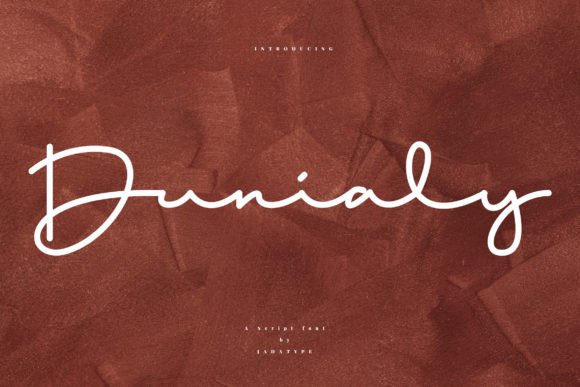
How Dunialy Helped My Bakery Look More Professional
I run a small bakery called “Sweet Haven,” and for years, I’ve been struggling with how to make my packaging stand out. Every time I printed new labels or updated my menu, it felt like I was just guessing what would work best. I wanted something that looked polished, consistent, and professional—something that would make customers remember my brand.
That’s when I discovered Dunialy. It’s a script font with monoline lines, and honestly, it changed everything. The first time I saw it, I knew it had the potential to elevate my brand visuals. It has this elegant, handwritten feel that feels personal and authentic, but still maintains a clean and modern look. It’s not too fancy, and it doesn’t overpower the design—it complements it.
The Right Font for a Signature Feel
Dunialy is perfect for creating a signature look. I used it on my bakery box labels and it immediately gave them a more refined appearance. It’s especially great for wordmarks and logos because it has a nice flow that makes the text feel intentional and well-thought-out. When I paired it with a simple sans serif font for the rest of the text, the contrast made everything pop without being overwhelming.
One of the things I love about Dunialy is its versatility. It works well for both headlines and short phrases, which is ideal for social media graphics and website banners. I also use it as a decorative accent in my Instagram templates, where it adds a touch of personality without distracting from the main content.
Real-Life Use Cases That Worked
When I redesigned my product labels, I used Dunialy for the main title, like “Cinnamon Roll” or “Chocolate Chip Cookie.” It added a sense of warmth and approachability that matched the vibe of my bakery. I paired it with a clean sans serif font for the ingredients and instructions, making the information easy to read while keeping the overall design cohesive.
I also applied Dunialy to my thank-you cards and event invitations. It gave them a more personal touch, which helped me connect with my customers on a deeper level. For my café menu, I used it as a display font for the dish names, and it really made the menu feel more inviting and stylish.
Another great use case for Dunialy is in digital ads and online shop graphics. Since it’s a premium font, it looks great on both print and screen, which is essential for a business that sells both physical products and digital downloads. I’ve even used it on my website banners, and it helps create a more professional and trustworthy brand image.
Readability Matters
One thing I learned early on is that readability is key, especially for small labels and mobile screens. I made sure to test Dunialy at different sizes to ensure it remained legible. It performs well even when scaled down, which is important for things like product tags and social media thumbnails.
For printed packaging, I found that using Dunialy in larger sizes worked best. It has a smooth stroke and clear definition, so it stands out against backgrounds without losing clarity. I also experimented with different weights and styles, and found that the regular weight was the most versatile for most applications.
Font Pairing Ideas That Work
Pairing Dunialy with other fonts can take your designs to the next level. I often use it with a clean sans serif font like Montserrat or Roboto for the body text. This creates a balance between the elegance of Dunialy and the simplicity of the sans serif, making the design feel more modern and professional.
If you’re looking for a more classic look, pairing Dunialy with an elegant serif font like Playfair Display can add a touch of sophistication. For a more casual vibe, I’ve used it with a handwritten font like Great Vibes, which gives the design a more personal and creative feel.
It’s also worth noting that Dunialy comes with several alternates, ligatures, and weights, which means you have a lot of flexibility in how you use it. Whether you’re designing a logo, a flyer, or a product label, there’s a style that will suit your needs.
Getting Started with Dunialy